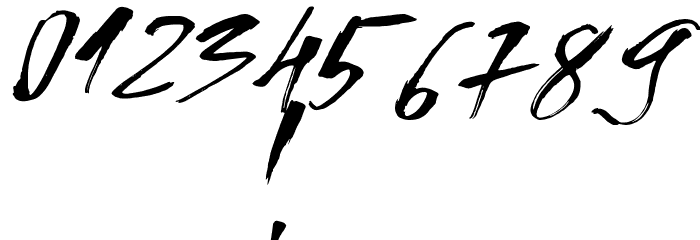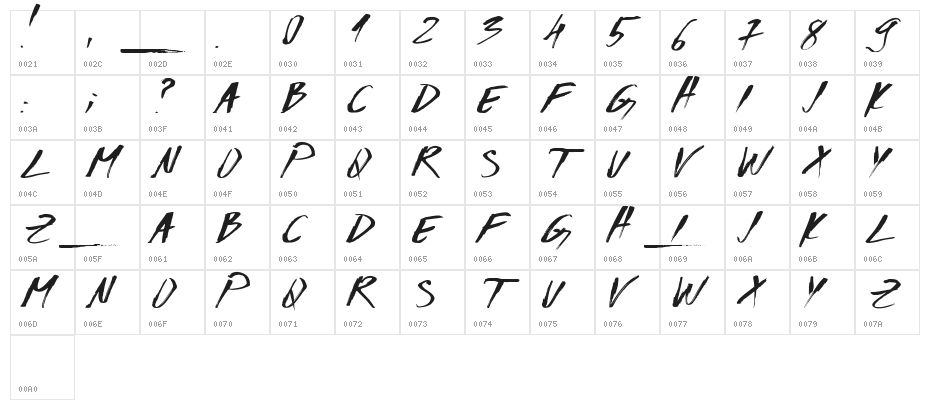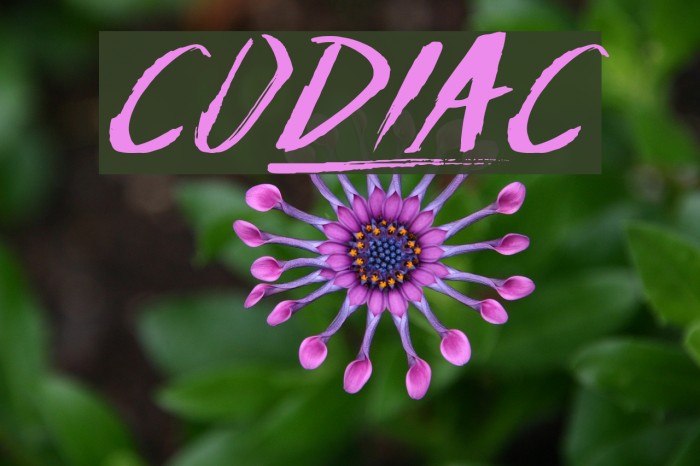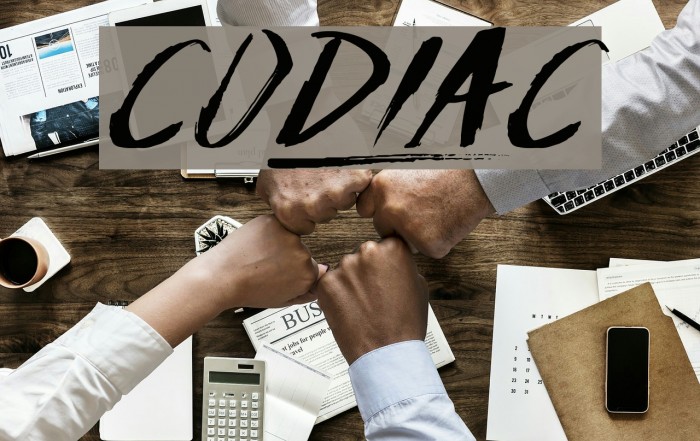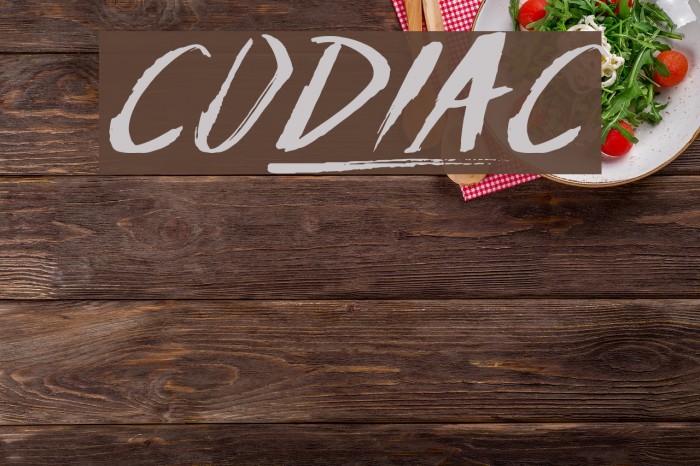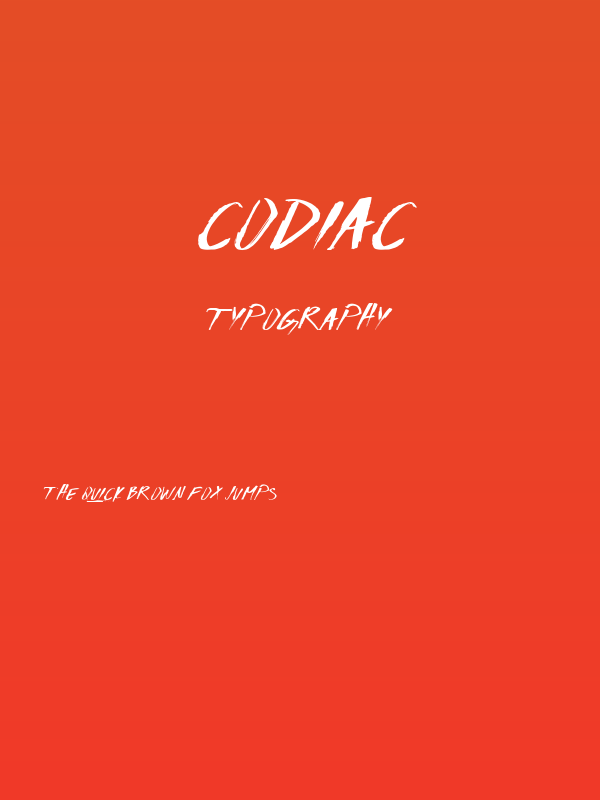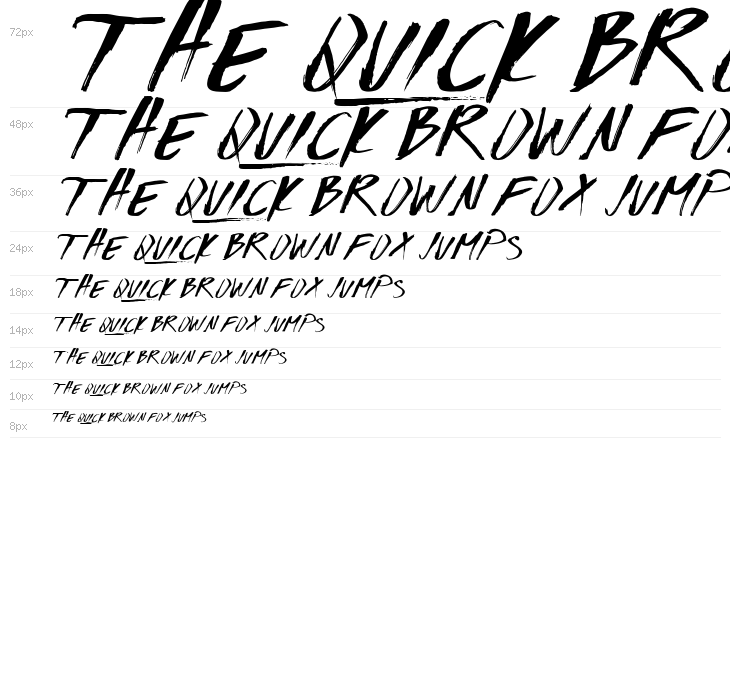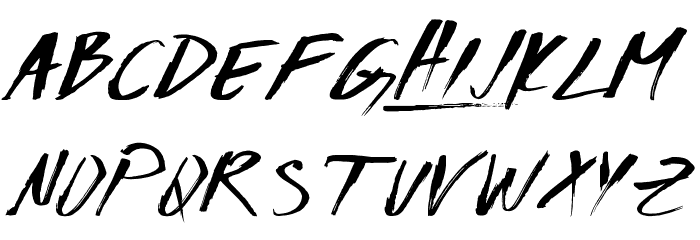
Codiac Font
Codiac Description
This font exudes a dynamic and energetic style, characterized by its bold, brush-like strokes that convey a sense of movement and spontaneity. The letters are crafted with varying thicknesses, creating a high contrast that enhances its visual impact. The uppercase and lowercase letters maintain a consistent flow, while the numerals and special characters integrate seamlessly with the overall design. The font's hand-drawn appearance gives it a personal and artistic touch, making it ideal for projects that require a creative and informal vibe.
| Proposed Projects | Ideal for artistic projects, branding, posters, and any design that requires a bold, expressive touch. |